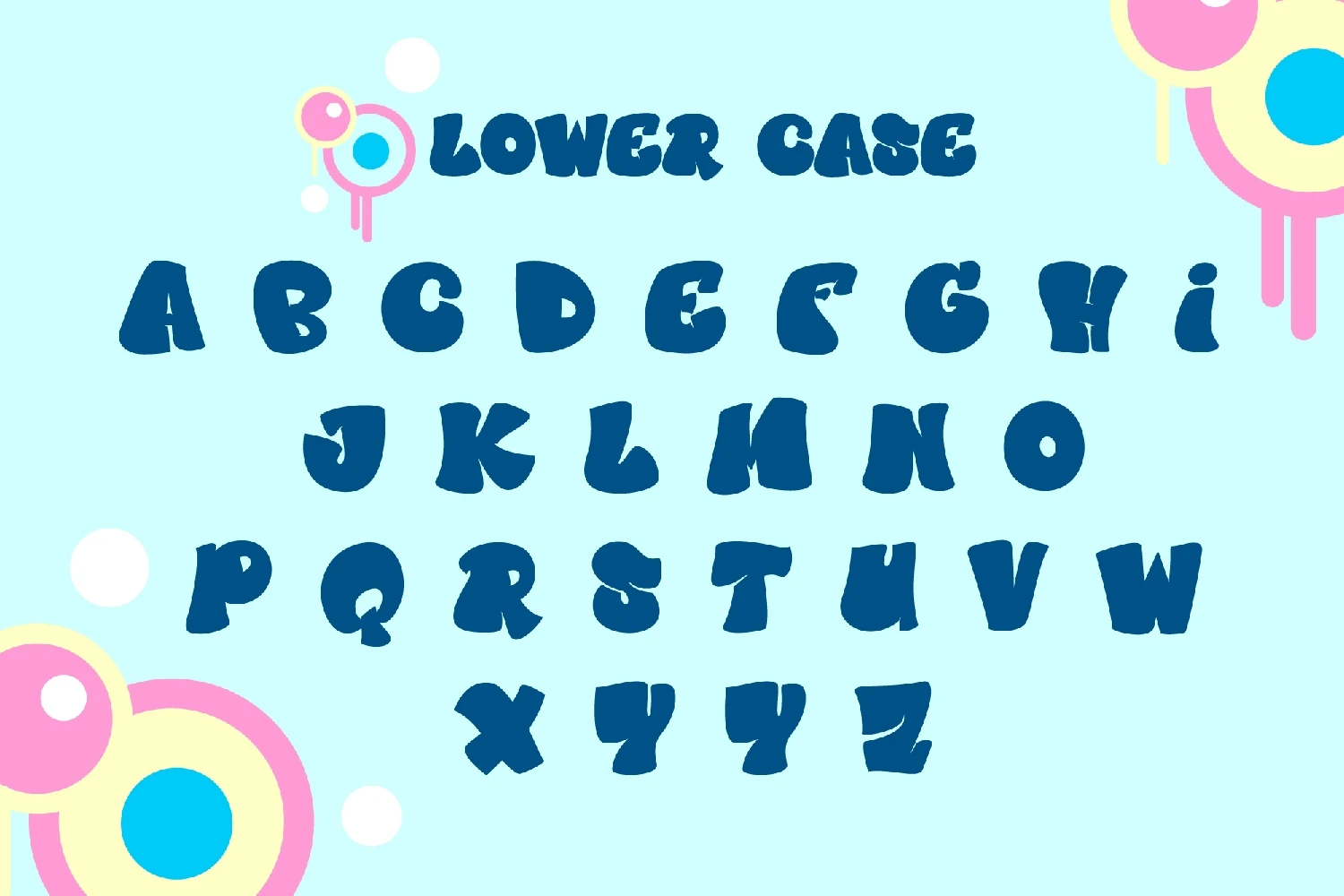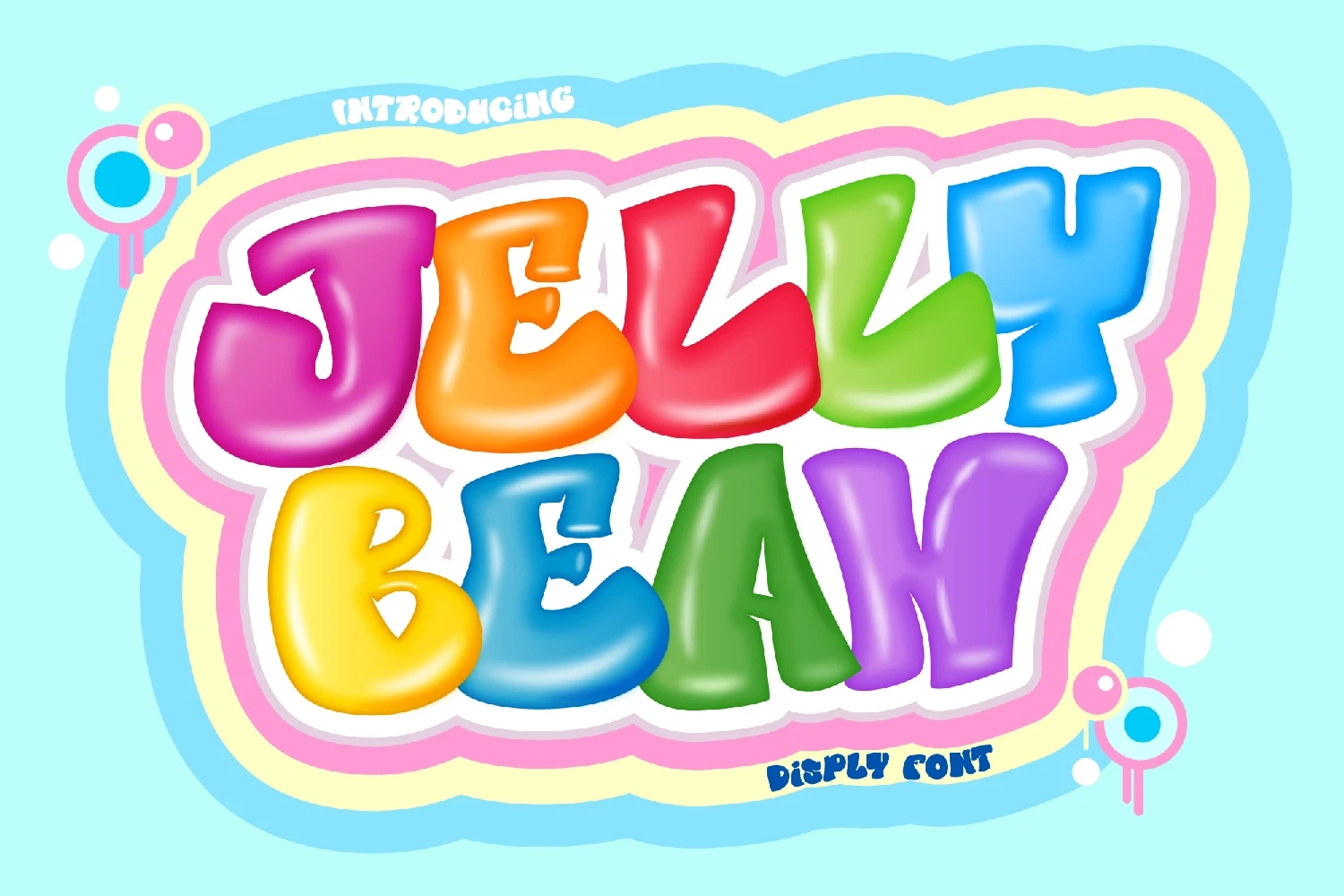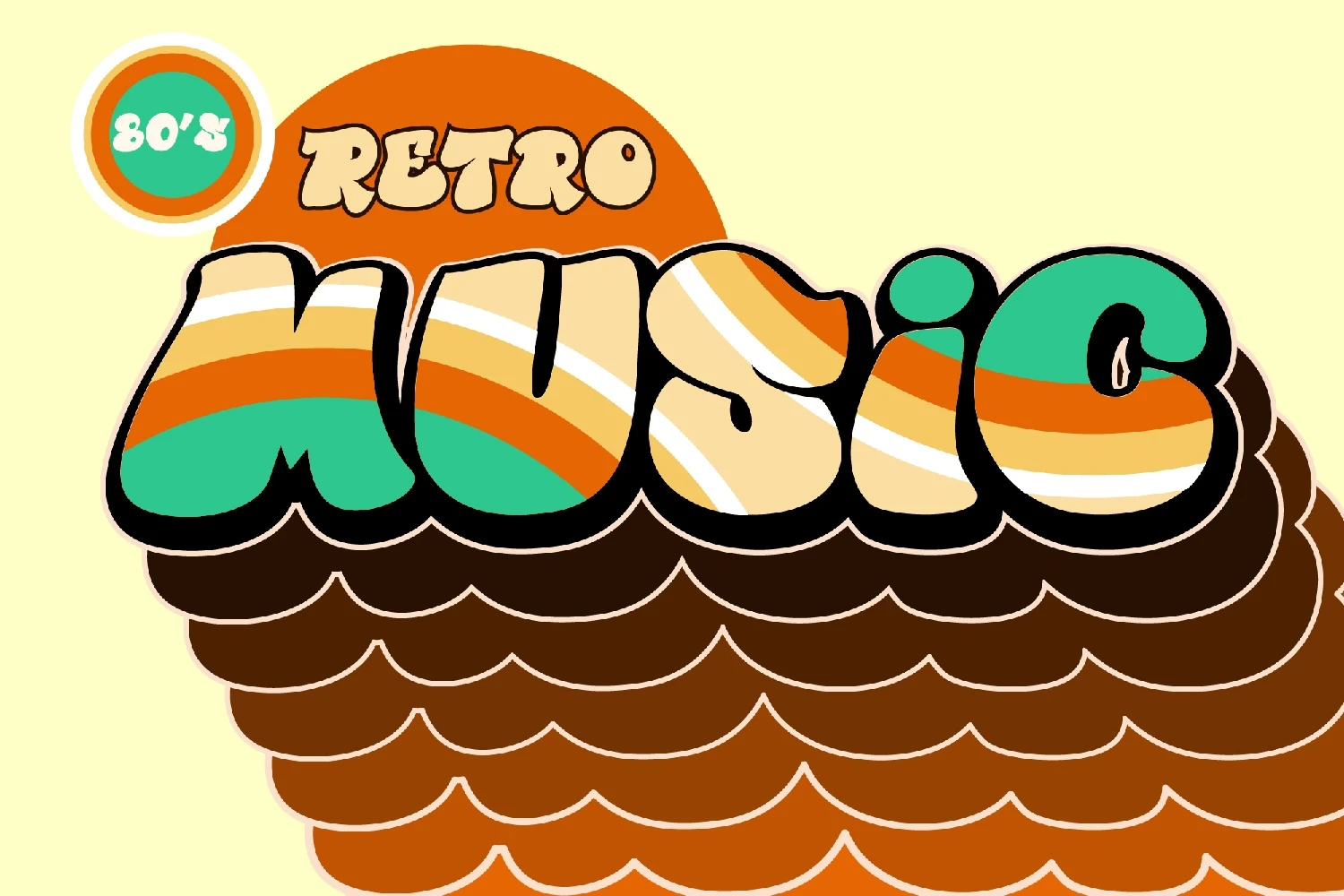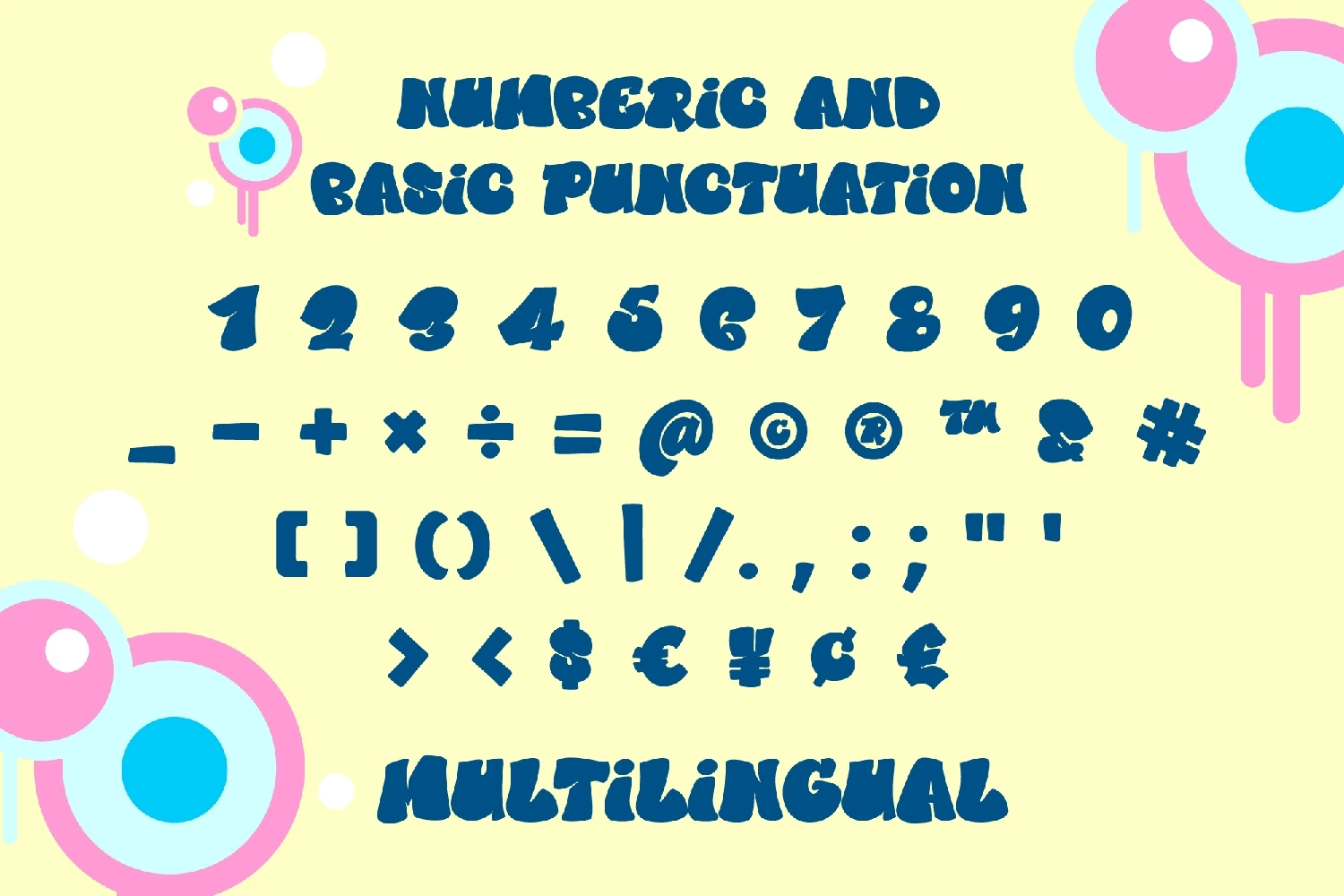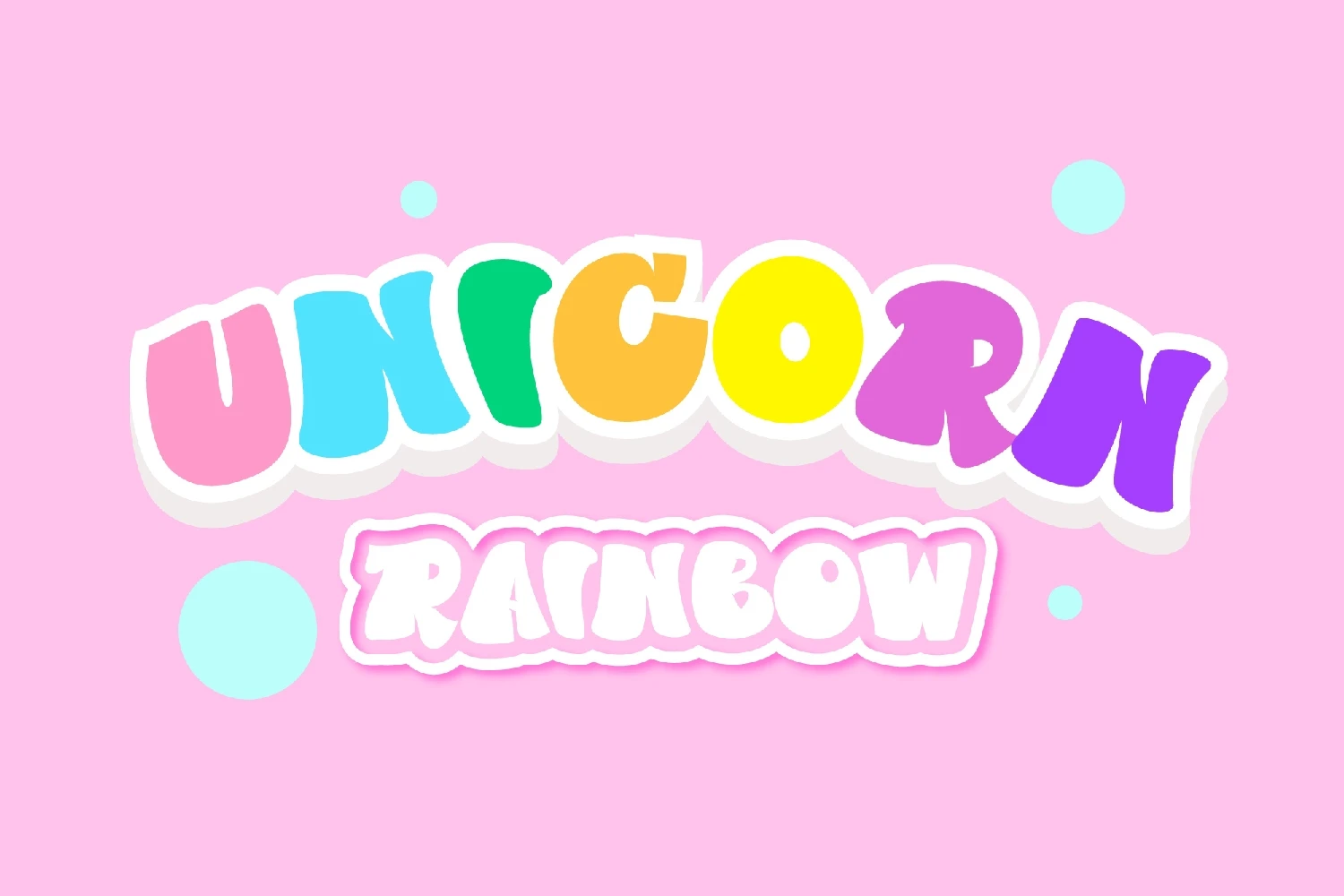
Jelly Bean is a friendly and chunky display font. It embodies playfulness and authenticity, and it is perfect for any childrens activity or elementary school design.